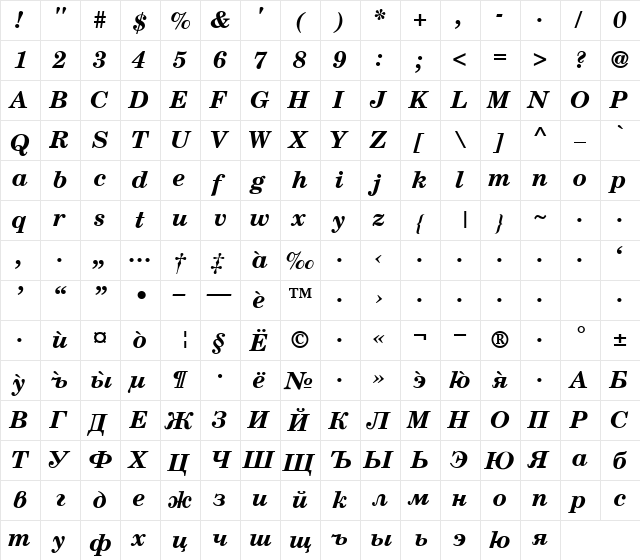
NewSaturionModernCyr Bold Italic Font Preview
Design Context for NewSaturionModernCyr Typeface
NewSaturionModernCyr is a composed and adaptable typeface that performs quietly and consistently across a wide range of design contexts. The dynamic lean of this cut emphasises speed and emphasis in any layout. The heavy weight commands attention and anchors typographic hierarchies.